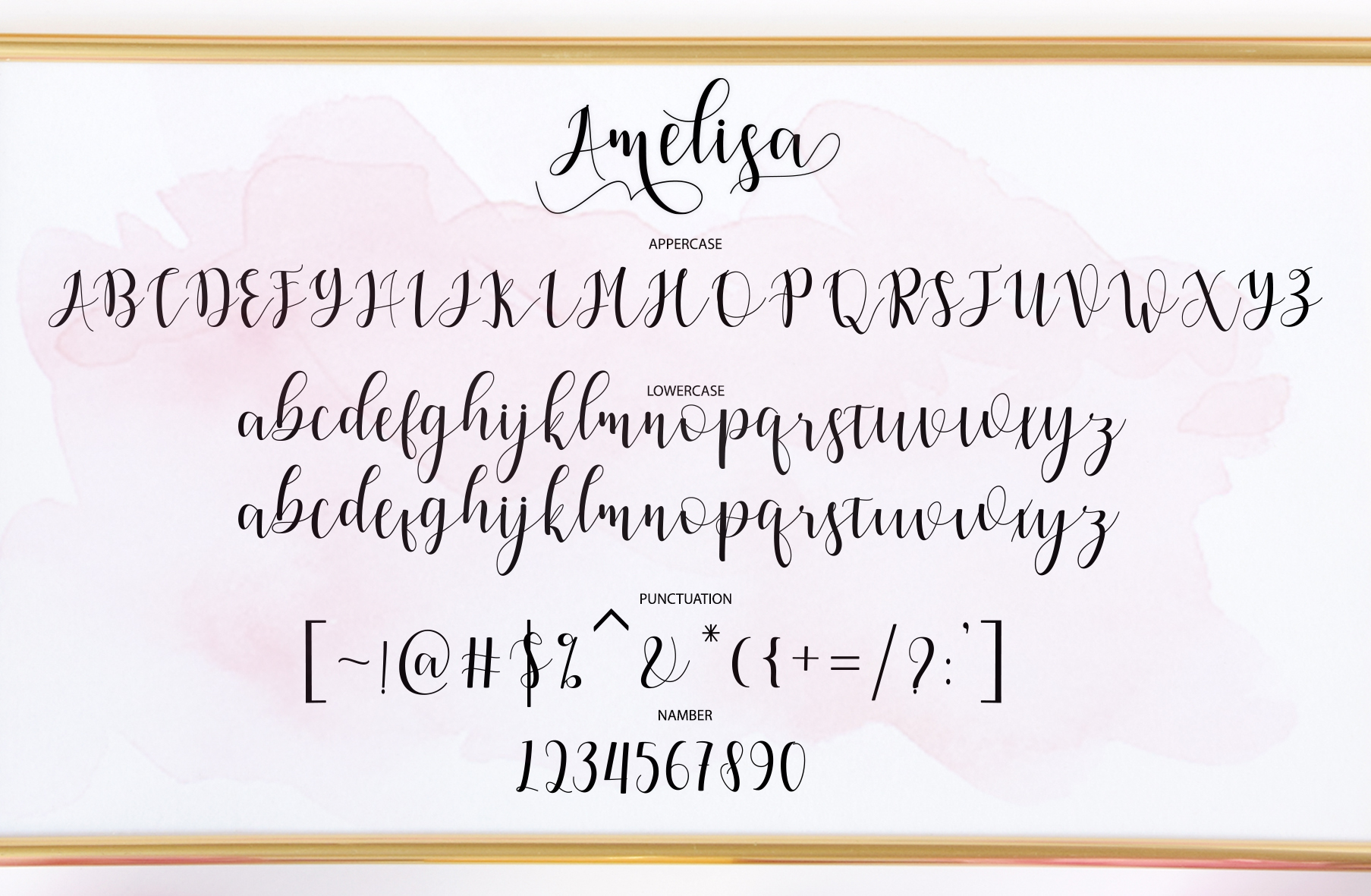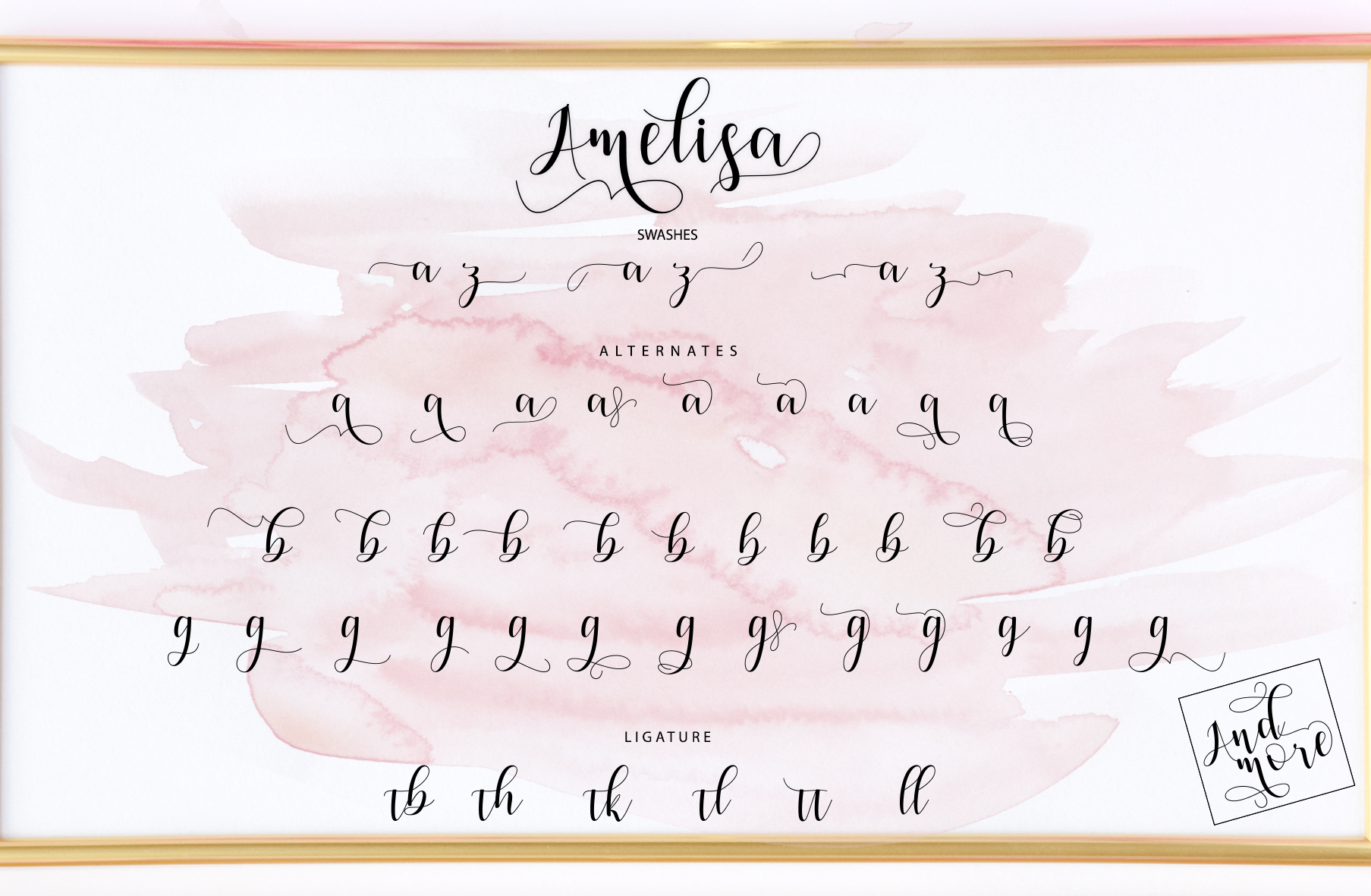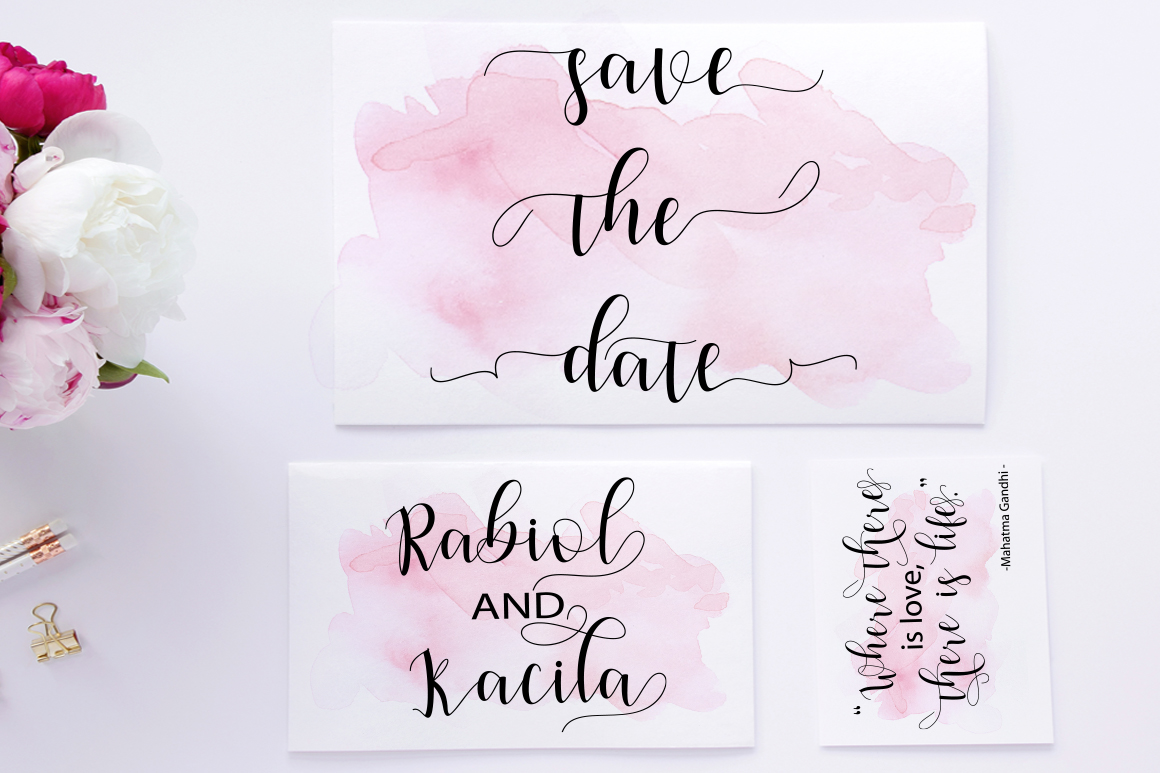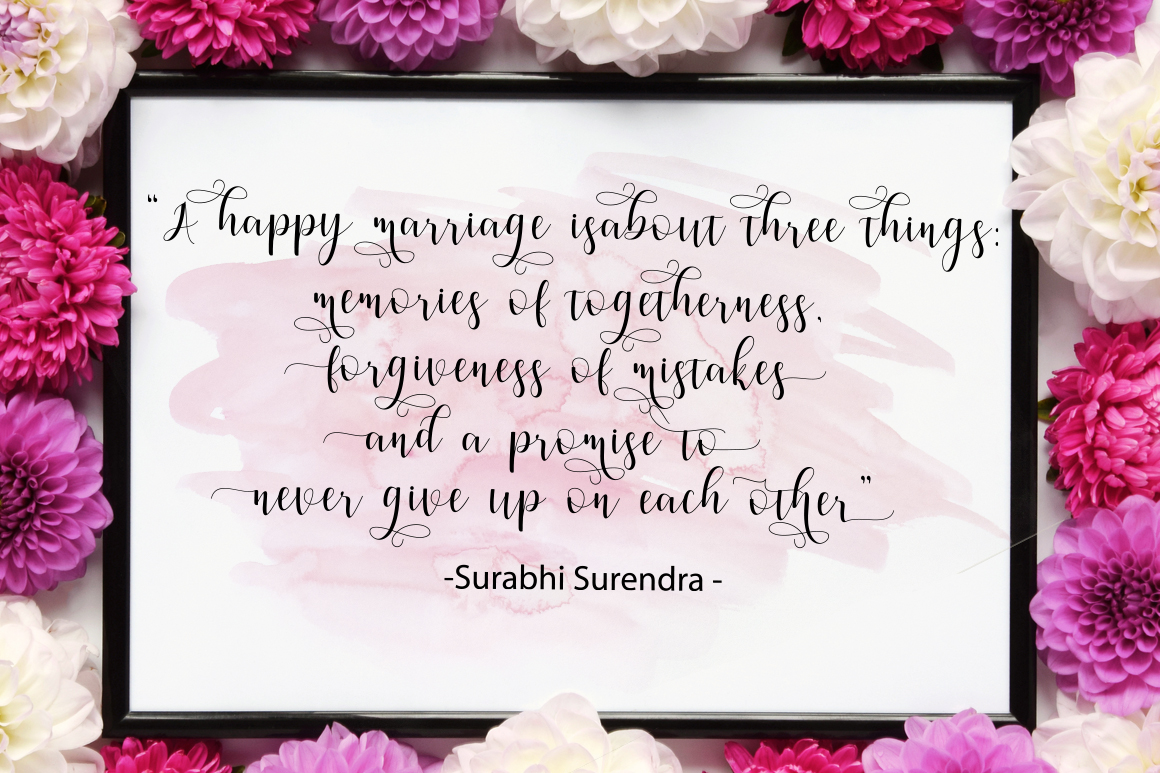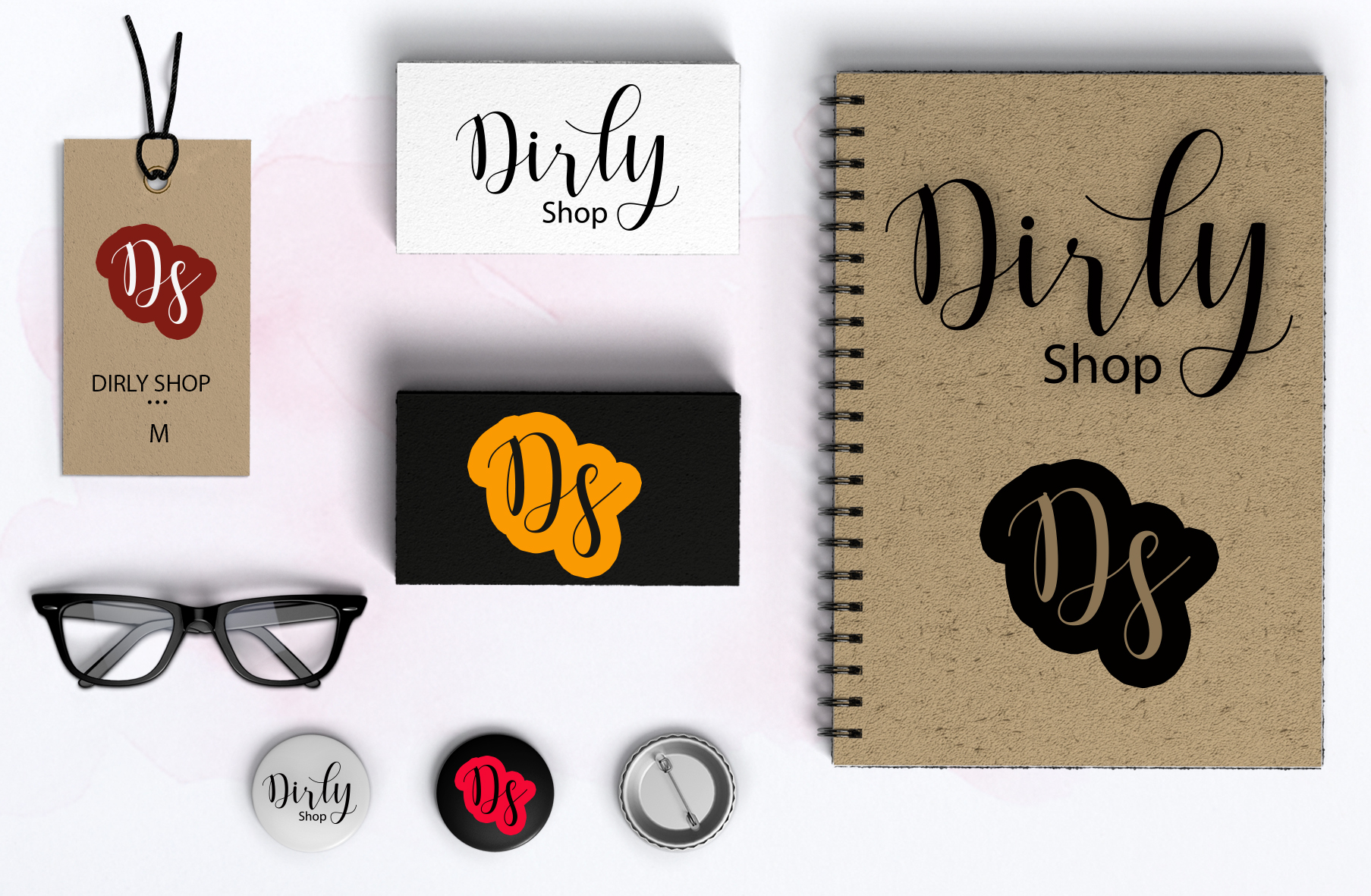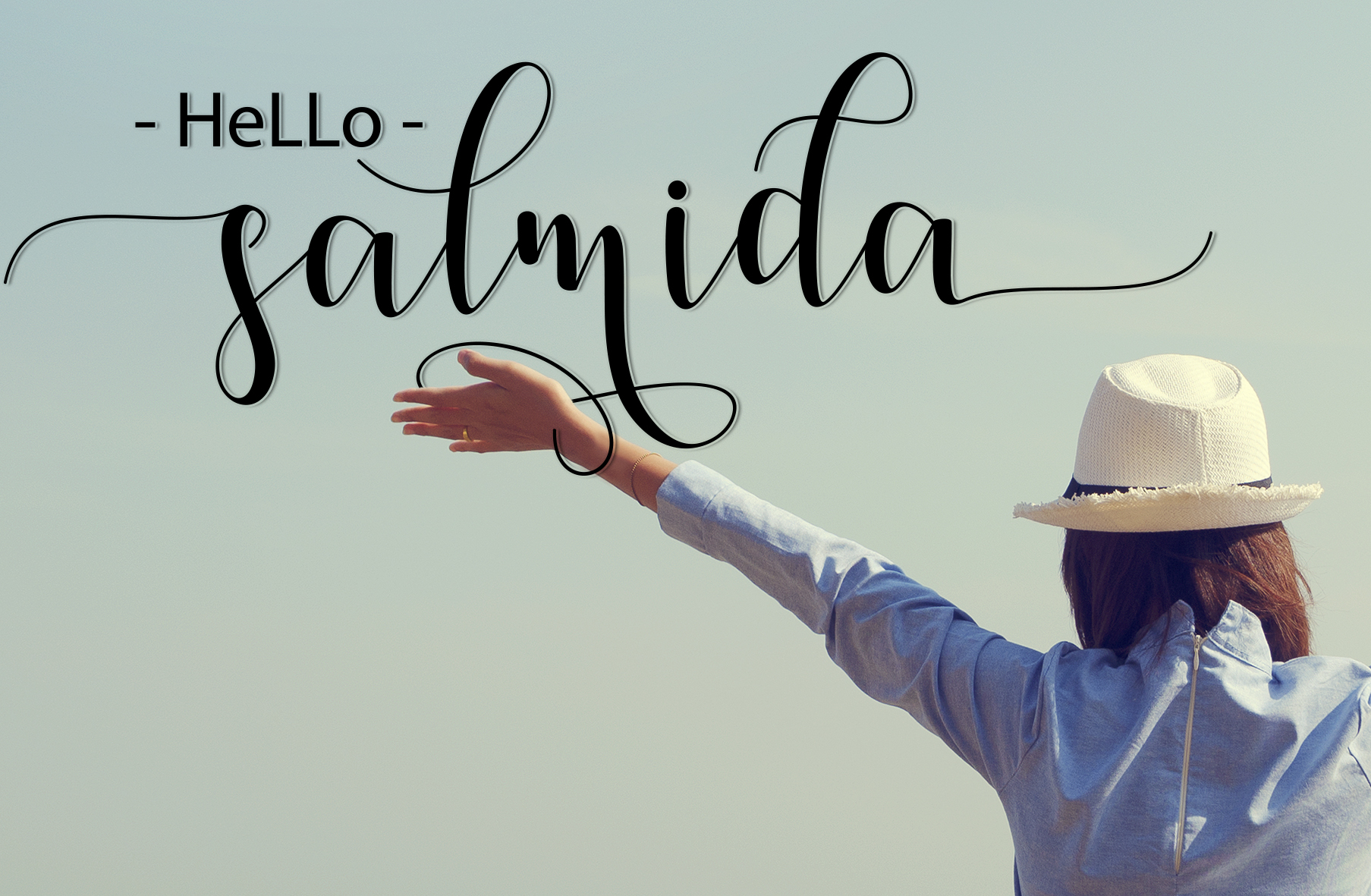
Introducing Amelisa Script Font: The Perfect Addition to Your Spring Designs
As the seasons change and Spring arrives, it’s the perfect time to refresh your design portfolio with a beautiful and fresh font. Look no further than Amelisa Script Font, a stunning handmade calligraphy font that’s sure to bring a touch of naturalness and charm to your digital designs and print collateral.
What is Amelisa Script Font?
Amelisa Script Font is a gorgeous, handcrafted calligraphy font that’s perfect for designers and crafters looking to add a personal touch to their work. With its elegant and flowing script, Amelisa is ideal for creating beautiful wedding invitations, branding materials, and social media graphics. This font is also perfect for crafters who want to add a touch of handmade charm to their DIY projects, such as papercrafts, scrapbooking, and journaling.
Key Features of Amelisa Script Font
• Handmade with love: Amelisa Script Font is carefully crafted by hand, giving it a unique and personal touch that’s hard to find in digital fonts.
• Perfect for Spring designs: With its fresh and airy feel, Amelisa Script Font is the perfect addition to your Spring designs, from Easter and Mother’s Day projects to wedding and baby shower invitations.
• Versatile and flexible: Amelisa Script Font can be used for a wide range of design projects, from digital graphics and social media posts to print collateral and assets.
• Elegant and charming: With its beautiful script and flowing lines, Amelisa Script Font adds a touch of elegance and charm to any design project.
How to Use Amelisa Script Font in Your Designs
Amelisa Script Font is easy to use and can be incorporated into your designs in a variety of ways. Here are a few ideas to get you started:
• Wedding invitations and stationery: Amelisa Script Font is perfect for creating beautiful wedding invitations, save-the-date cards, and other stationery.
• Branding and packaging: Use Amelisa Script Font to add a touch of elegance and sophistication to your branding materials, such as business cards, brochures, and product packaging.
• Social media graphics: Amelisa Script Font is great for creating eye-catching social media graphics, such as Instagram posts and Facebook covers.
• DIY projects: Amelisa Script Font can be used for a variety of DIY projects, such as papercrafts, scrapbooking, and journaling.
Why Choose Amelisa Script Font?
With so many digital fonts available, why choose Amelisa Script Font? Here are a few reasons why:
• Unique and handmade: Amelisa Script Font is a one-of-a-kind, handmade font that’s sure to stand out in your designs.
• High-quality design: Amelisa Script Font is designed with high-quality and clarity in mind, making it perfect for both digital and print use.
If you’re looking for a beautiful and fresh font to add to your design portfolio, look no further than Amelisa Script Font. With its handmade charm, elegant script, and versatility, Amelisa is the perfect addition to any design project. Whether you’re a designer, crafter, or DIY enthusiast, Amelisa Script Font is sure to bring a touch of naturalness and charm to your work.